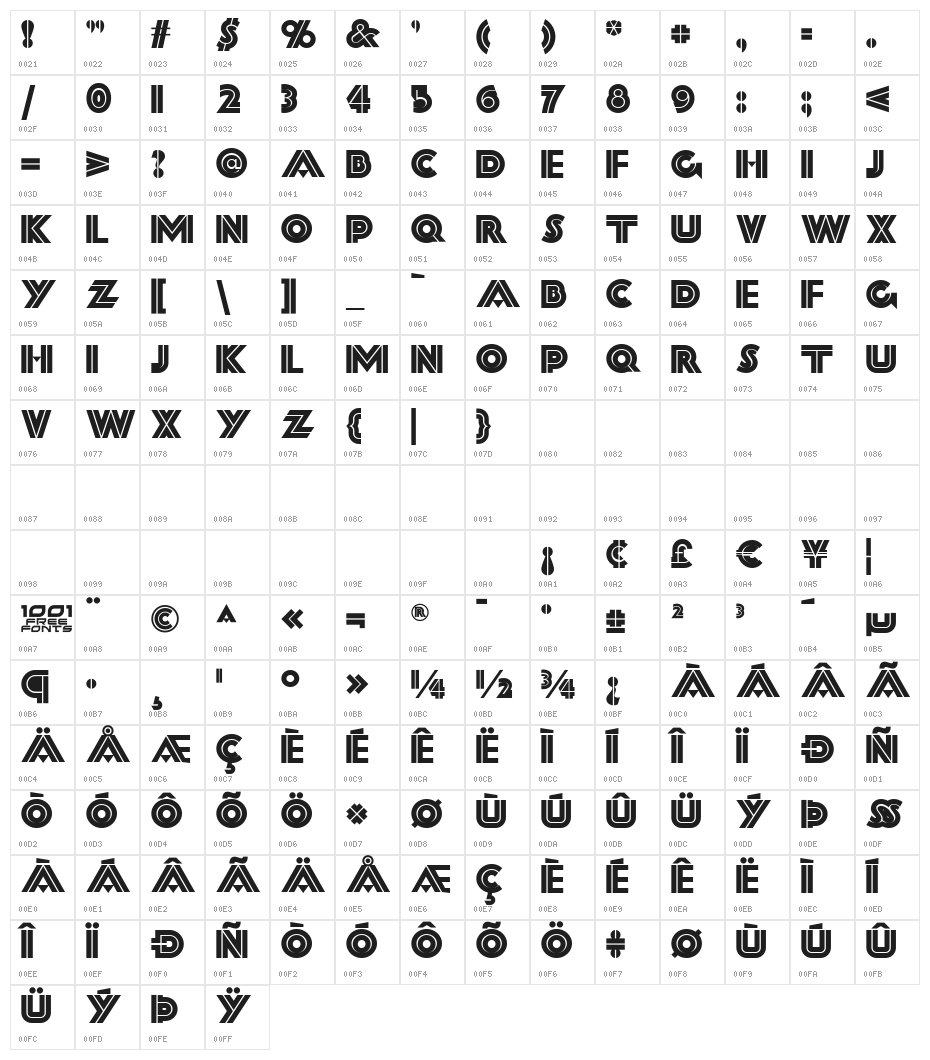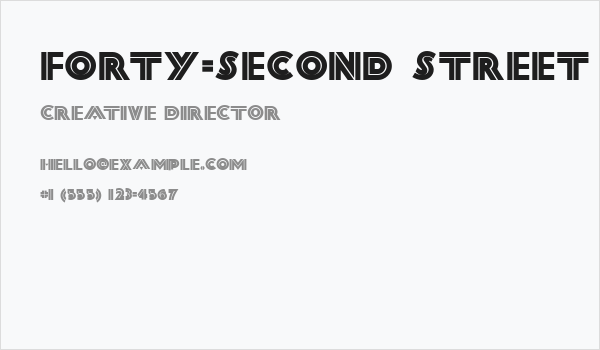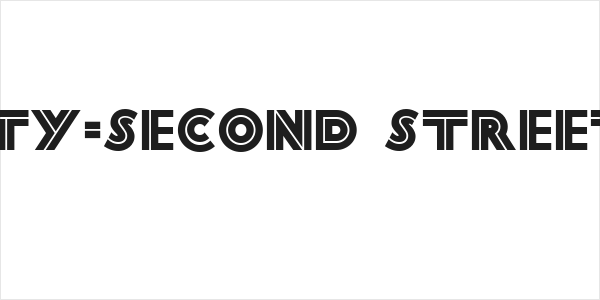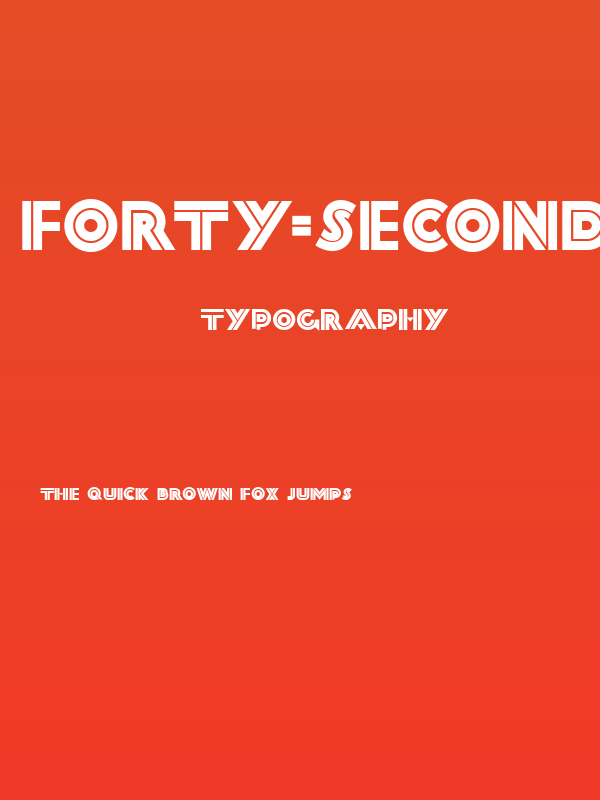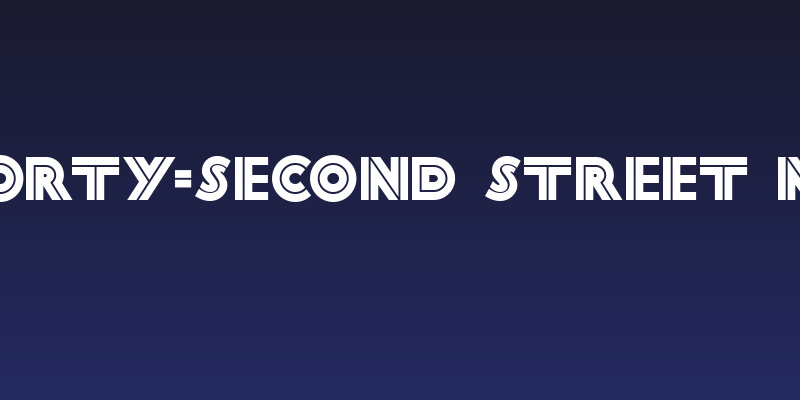
Forty-Second Street NF Font
Forty-Second Street NF Description
This font features a bold and striking Art Deco style, characterized by geometric shapes and strong lines. The uppercase letters are designed with a unique three-line pattern that adds depth and dimension, while the lowercase letters maintain a consistent boldness. Numbers and special characters follow the same aesthetic, ensuring a cohesive look across all text. The overall design is both retro and modern, making it versatile for various creative projects. Its distinct style is perfect for capturing attention and conveying a sense of elegance and sophistication.
Proposed ProjectsIdeal for vintage-themed posters, branding, packaging, and editorial design.